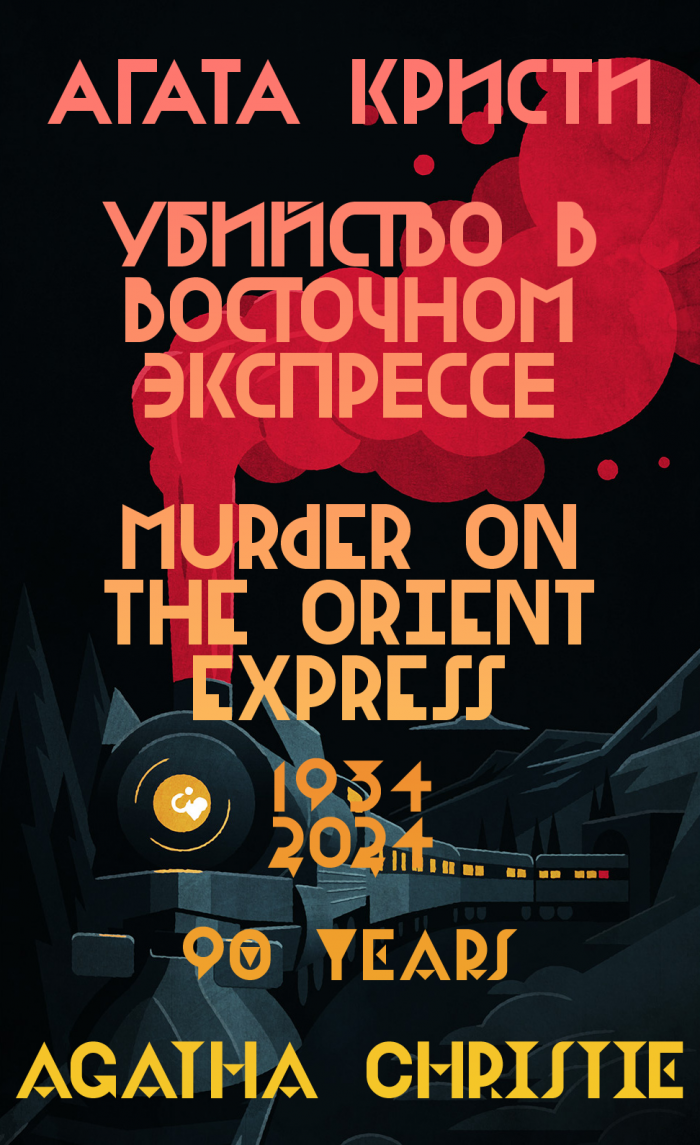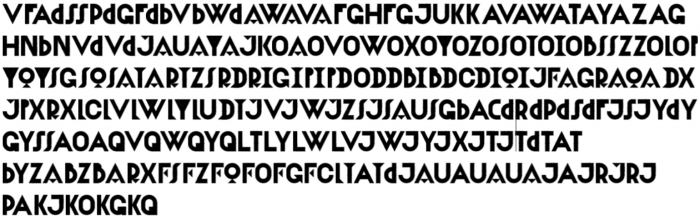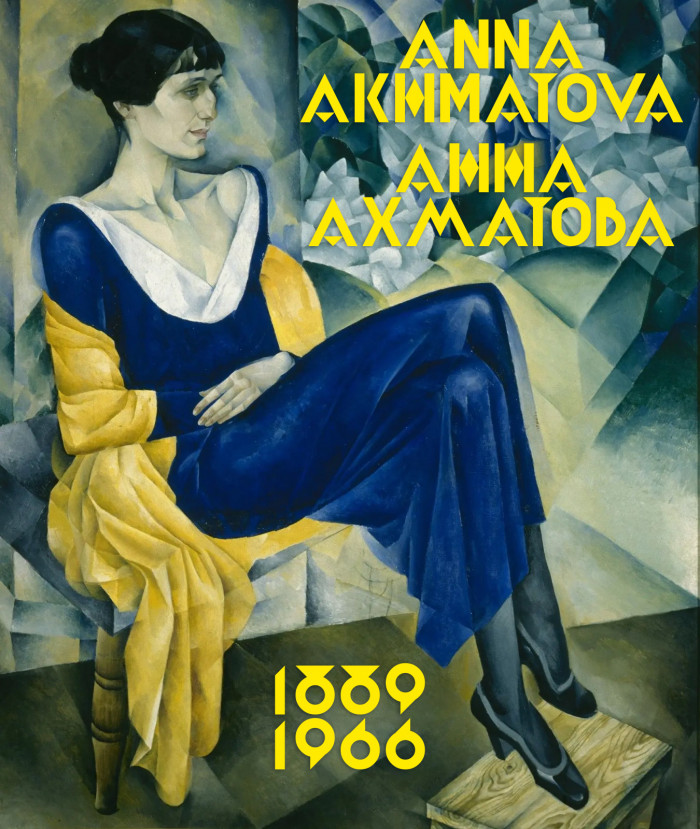
The font with great attention to numbers, from which its creation began and they set the style for the rest of the font. The result was an art deco style font with not the most balanced (A so wide), but strictly geometric proportions, as was done on posters of that era.
The name is in honor of Kazimir Malevich, the famous Ukrainian (USSR) artist with Polish origin. Malevich works: https://arthive.com/kazimirmalevich/works?_lang=EN
Nice! I like this art-decoesque/futurist one and your excellent samples. I've tried something remotely similar here.
So many kerning pairs here. Tell me if you find anything else in the Latin alphabet.
what about (v)(4)?
and (4)(a)? and (s)(4)?
you did literally nothing about kerning pairs with (4)
@lucapri: Thank you. Yes, I have not yet done kerning for numbers and Cyrillic alphabet, so I previously wrote only about the Latin alphabet.